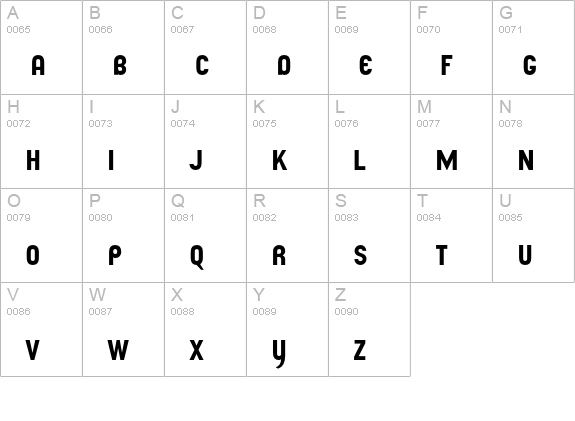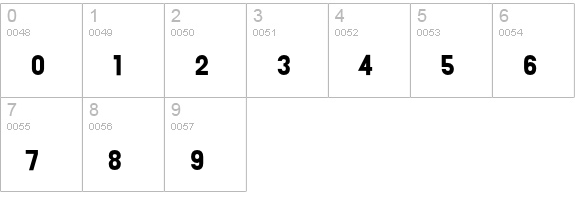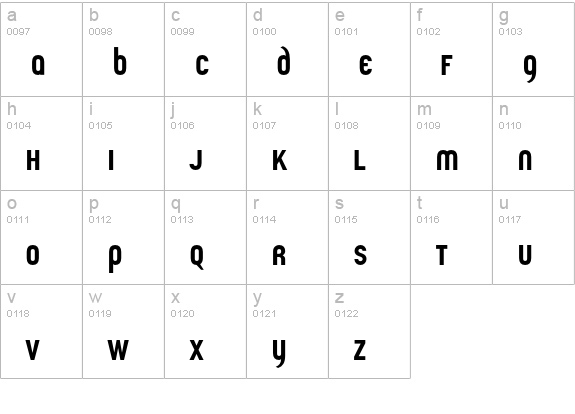
Udo Font Details
Udo Font is a modern and stylish typeface that exudes creativity and versatility. With its sleek lines and elegant curves, Udo Font is perfect for a wide range of design projects, from branding and logo design to advertising and editorial layouts. What sets Udo Font apart is not only its aesthetic appeal but also the fact that it is completely free to use. That's right – this fabulous font can be downloaded for free at FontsMarket.com, making it accessible to designers and creatives of all levels. Udo Font is designed with attention to detail, ensuring legibility and readability in both print and digital mediums. Its clean and well-defined letterforms make it suitable for various applications, including headlines, titles, body text, and even small sizes. Whether you're designing a website, crafting a magazine layout, or creating eye-catching social media graphics, Udo Font has got you covered. Its wide range of weights and styles allows for endless possibilities, allowing you to experiment and create unique typographic compositions that captivate your audience. In addition to its visual appeal, Udo Font also offers extensive language support, making it a versatile choice for international projects. It includes a wide range of characters and glyphs, ensuring that you can communicate your message effectively, no matter the language or region. So, why wait? Download Udo Font today from FontsMarket.com and elevate your design projects to new heights. With its modern and sophisticated look, extensive language support, and the best part – it's completely free, Udo Font is an essential addition to your font library. Don't miss out on this opportunity to enhance your designs and make a lasting impression.